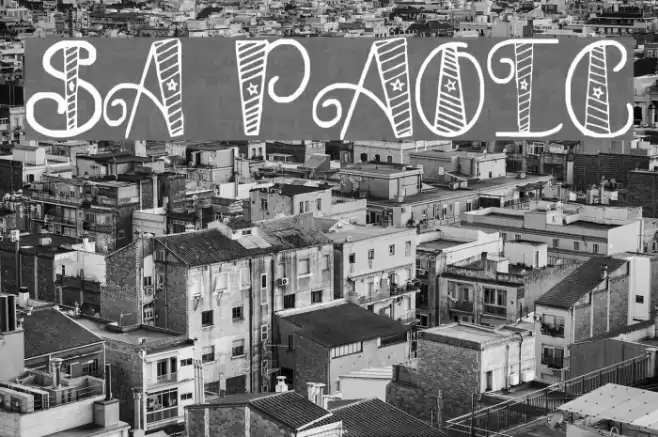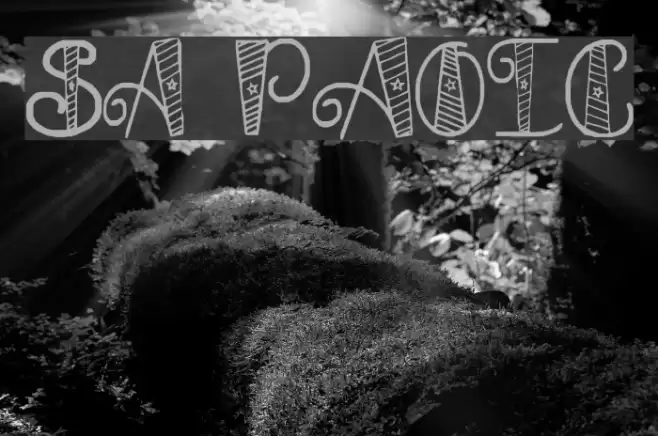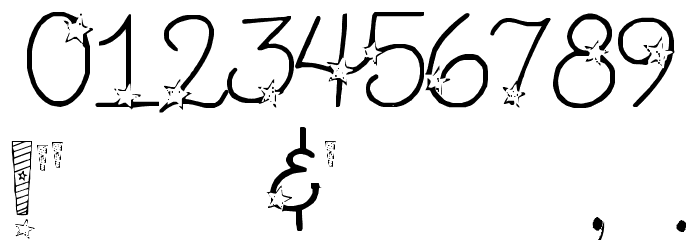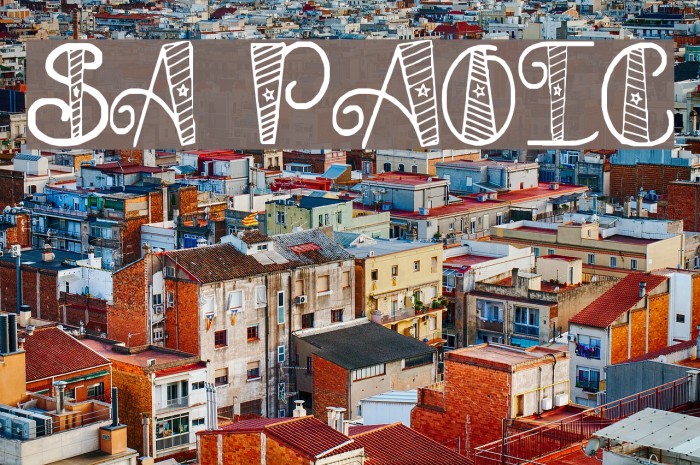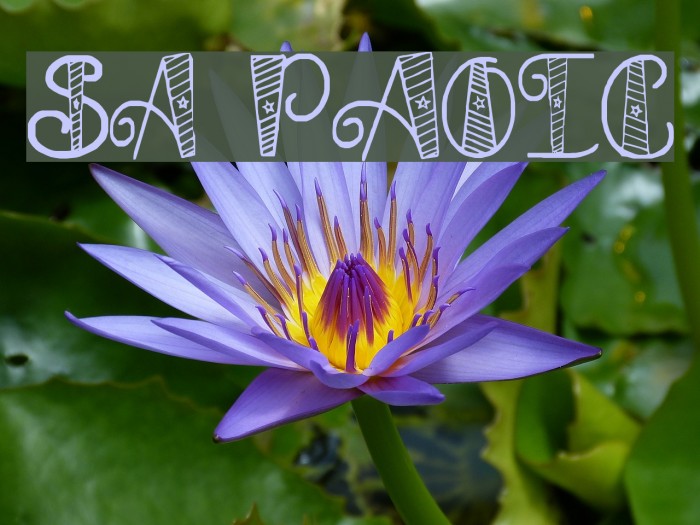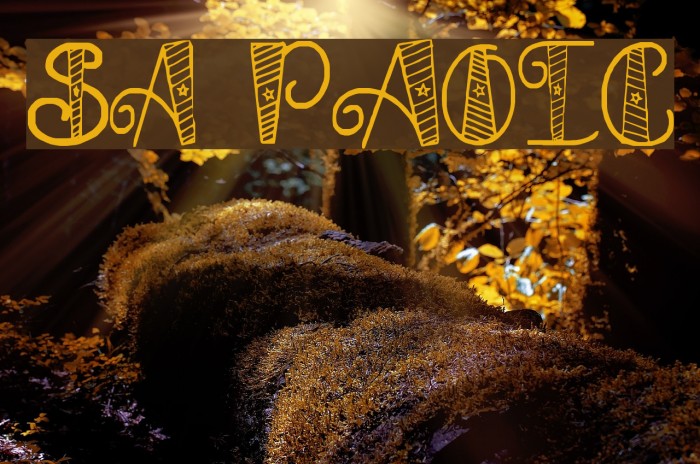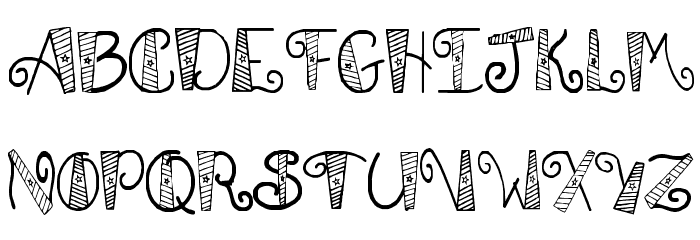
SA Patrotic Font
SA Patrotic Description
This font features a whimsical and decorative style, characterized by its playful curls and patriotic elements. Each letter is adorned with stripes and stars, reminiscent of a festive, celebratory theme. The uppercase and lowercase letters maintain a consistent design, with bold strokes and intricate detailing. The numbers and special characters also follow this theme, incorporating stars and stripes to enhance the overall aesthetic. This font exudes a sense of fun and creativity, making it ideal for projects that require a touch of patriotism and flair.
A whimsical, decorative font with patriotic stars and stripes from Uncategorized fonts.
- Proposed Projects: Ideal for holiday banners, patriotic event invitations, themed posters, and festive merchandise.
- Use Case: Headlines, Posters, Invitations